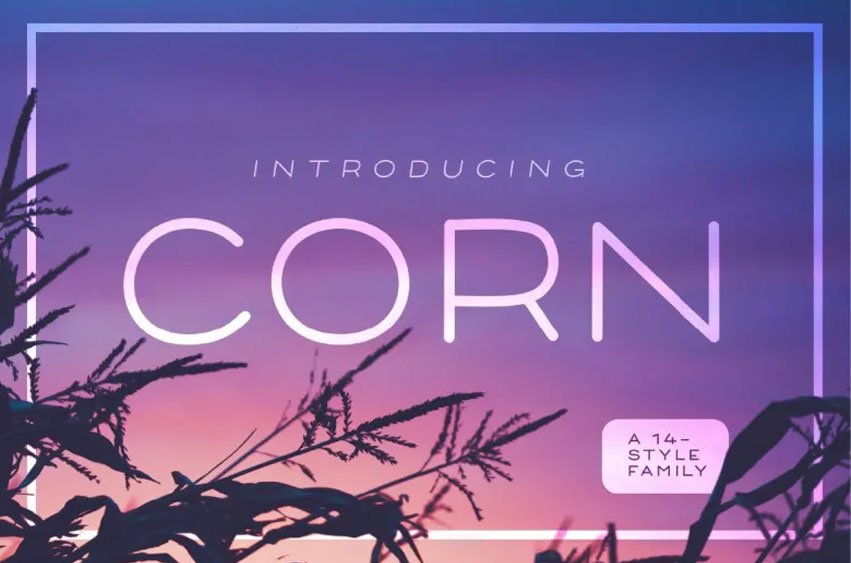
Corn Font
Corn Font was designed by Nora Bruckhoff. Corn is the new font for clean and modern design. Its rounded corners give the font a smooth appearance. It also features numbers, symbols and language support.